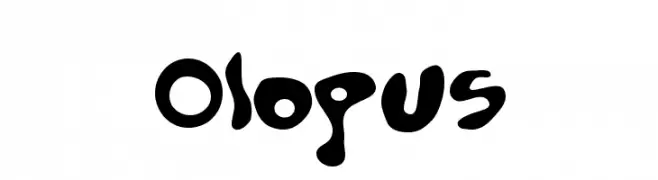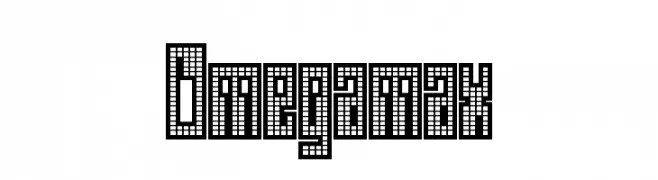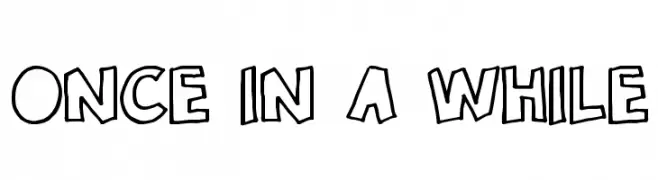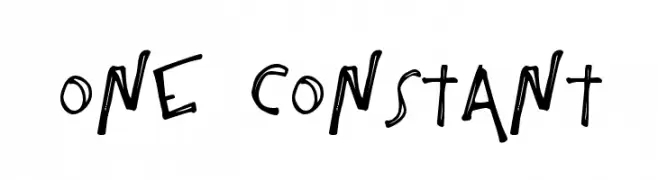
( Fonts by Phillip Cavette )
A playful, bold font with an organic and whimsical design.
( Fonts by www.fontalicious.com )
A pixelated, grid-based font with a retro digital aesthetic.
( Fonts by Jacob Fisher - www.pizzadude.dk )
A playful, hand-drawn font with bold outlines and a cartoonish style.
( Fonts by Divide By Zero! - fonts.tom7.com )
A playful, quirky handwritten font with dynamic, irregular letterforms.